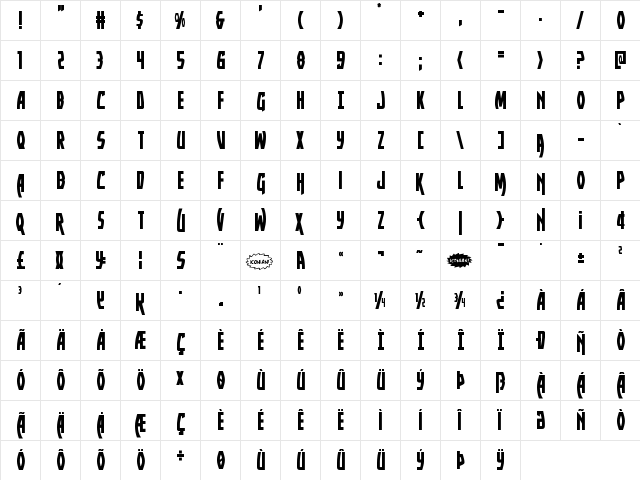
Yankee Clipper Regular
Design Context for Yankee Clipper Typeface
Yankee Clipper is a composed and adaptable typeface that performs quietly and consistently across a wide range of design contexts.
Pro Tip: Pair Yankee Clipper with a font of contrasting weight or personality to build a more expressive typographic hierarchy.